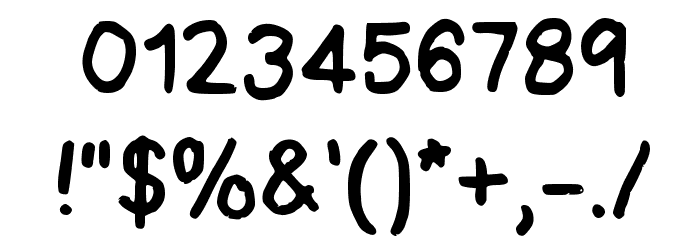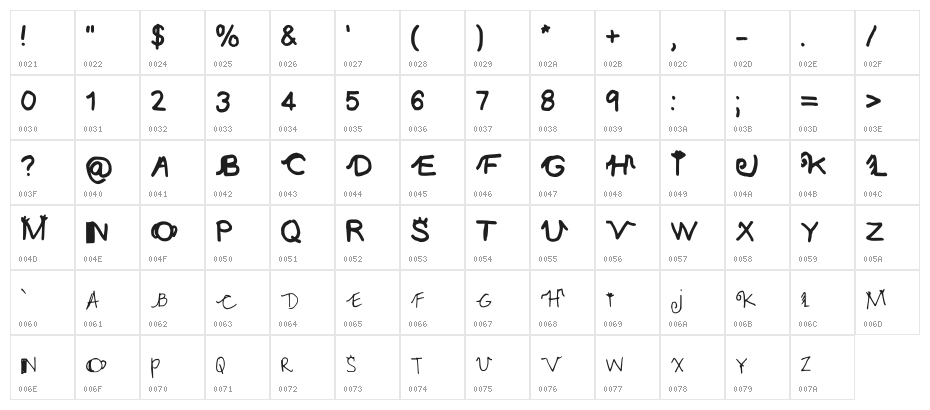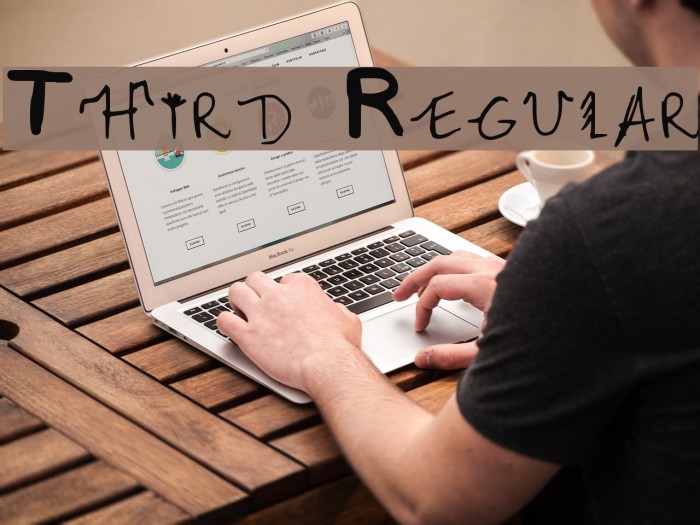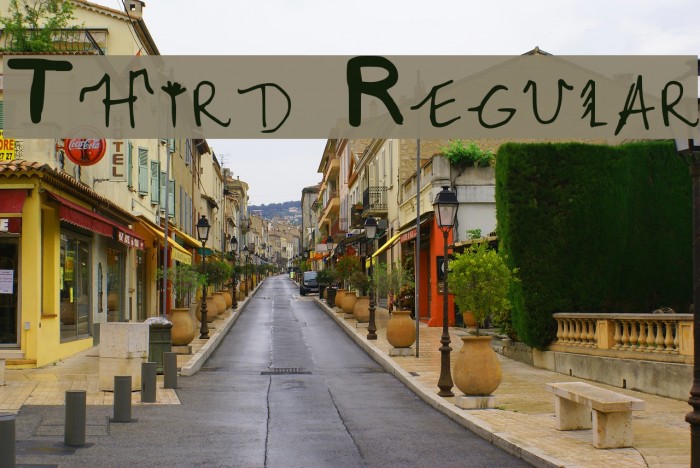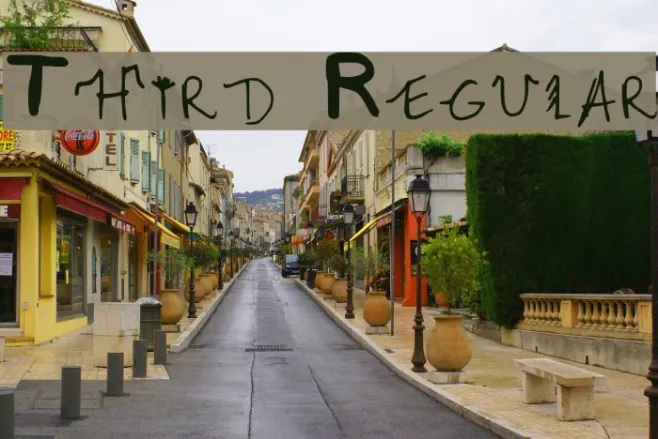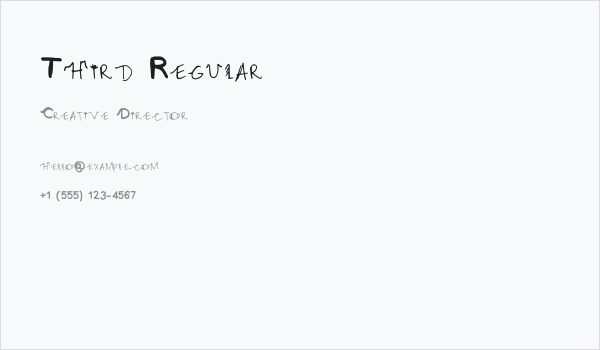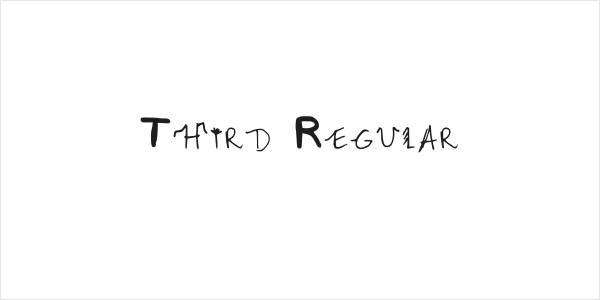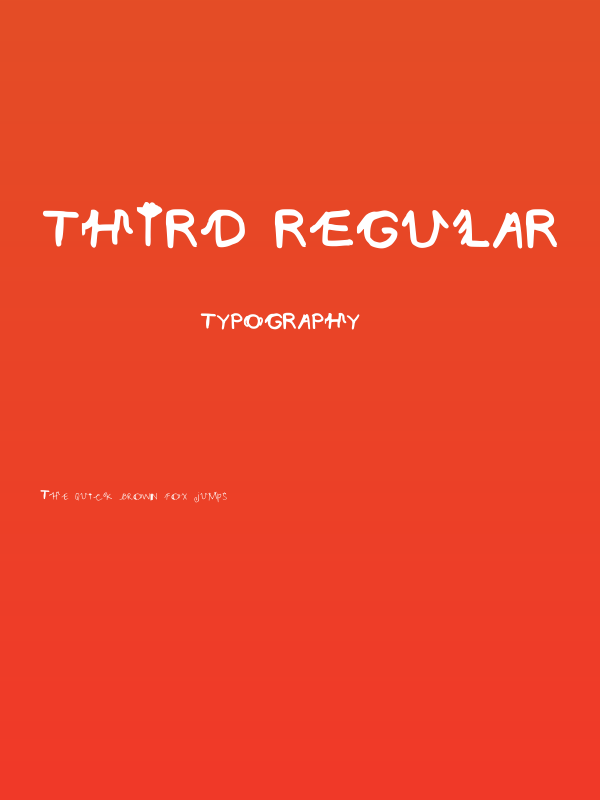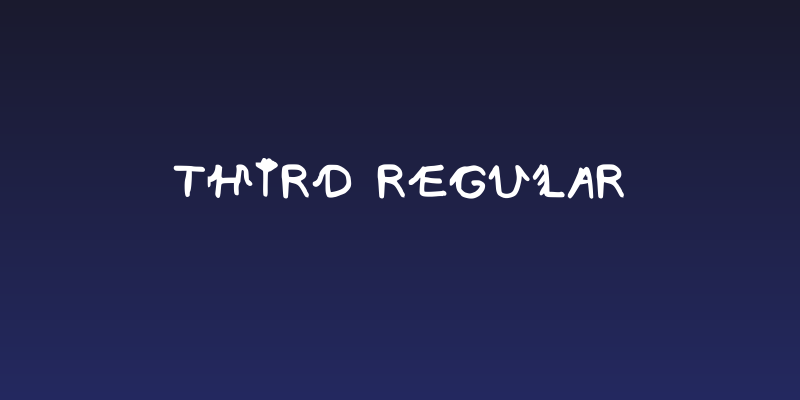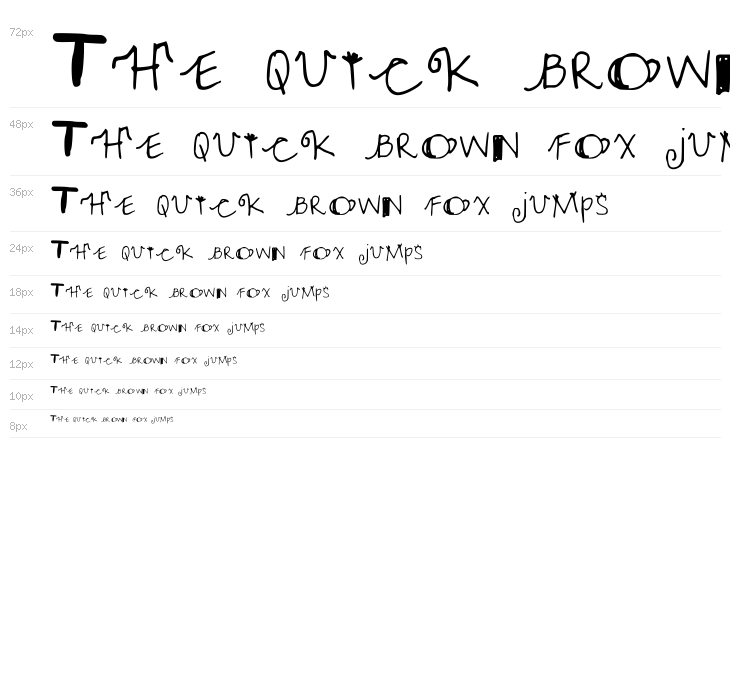
Third Regular Font
Third Regular Description
This font exhibits a playful and artistic style, characterized by its irregular and whimsical letterforms. The uppercase letters are bold and dynamic, with unique shapes that give a sense of movement and creativity. The lowercase letters maintain this playful aesthetic, with some characters featuring unexpected curves and angles. The numbers are bold and consistent with the overall style, ensuring readability while maintaining the font's artistic flair. Special characters are designed with the same creativity, adding to the font's versatility. This font is perfect for projects that require a touch of fun and creativity, such as children's books, playful branding, or artistic posters.